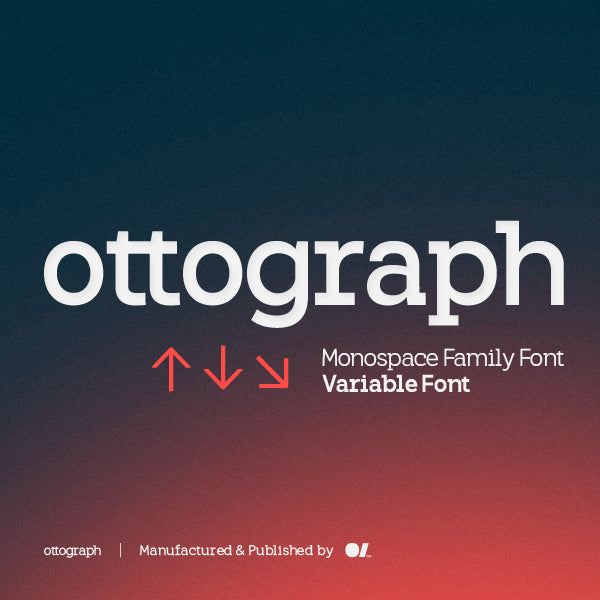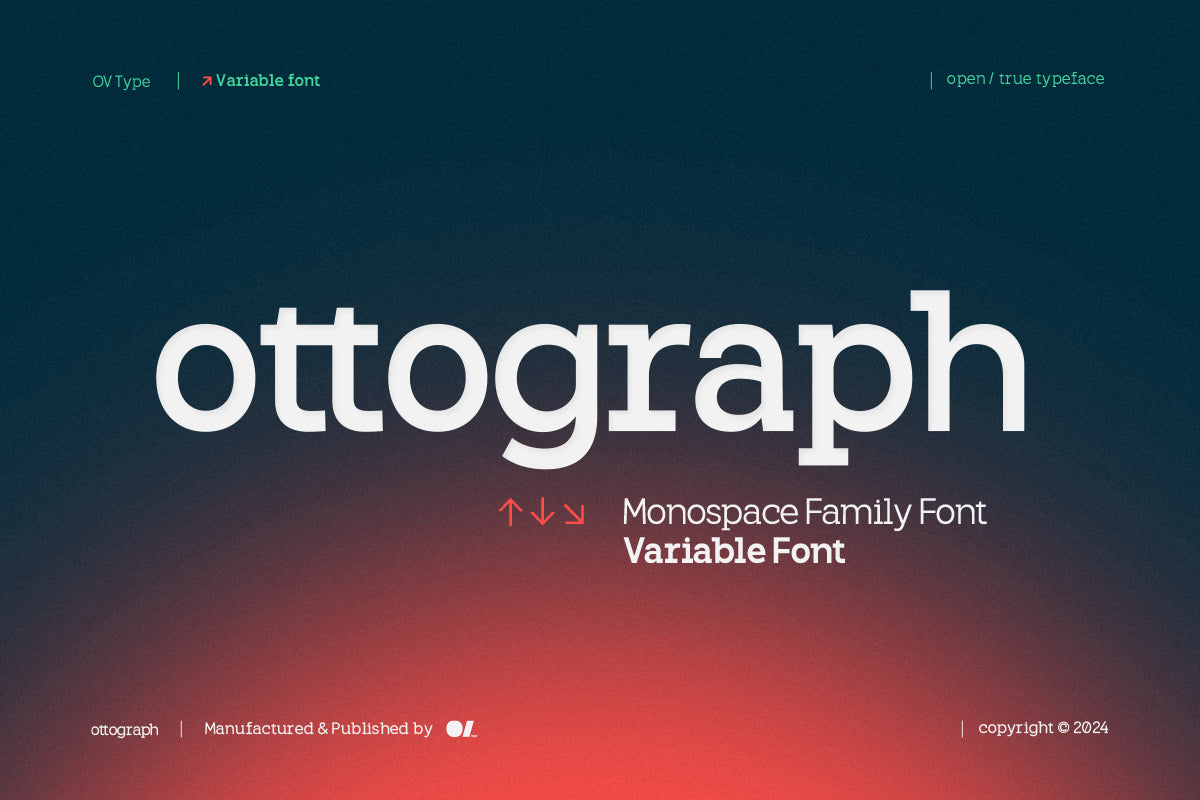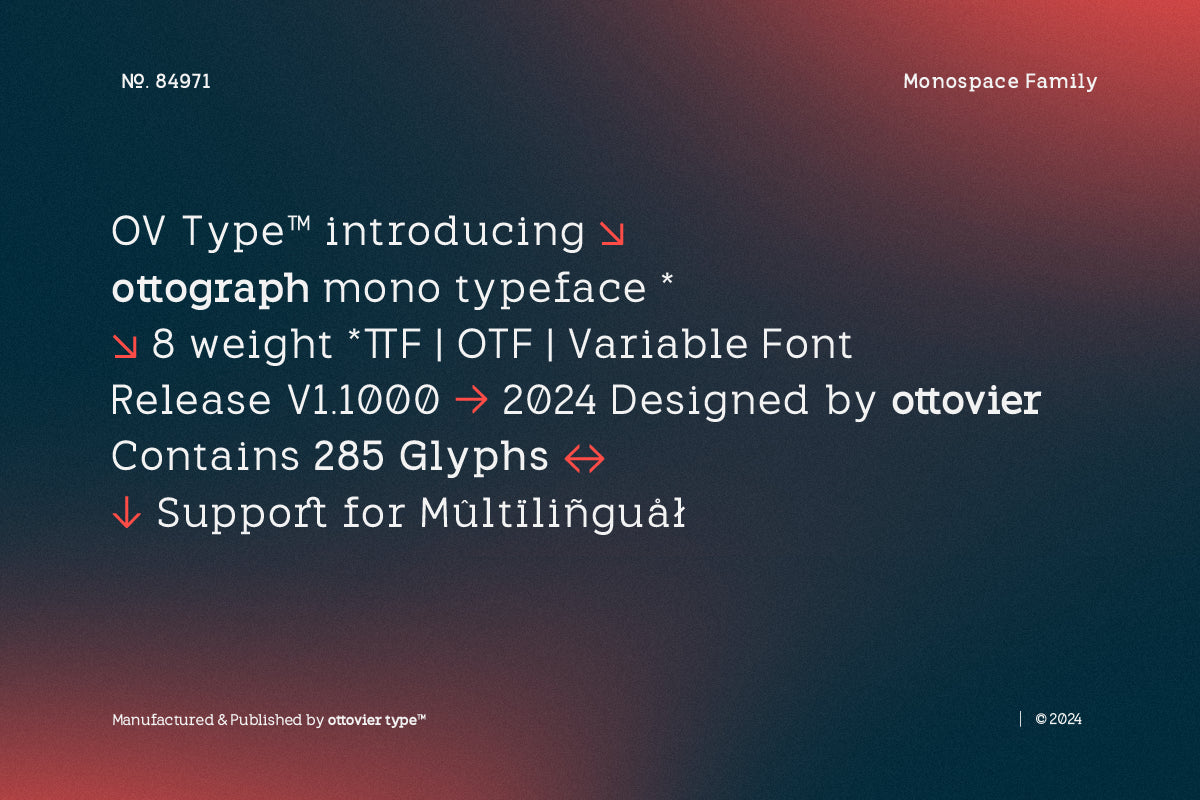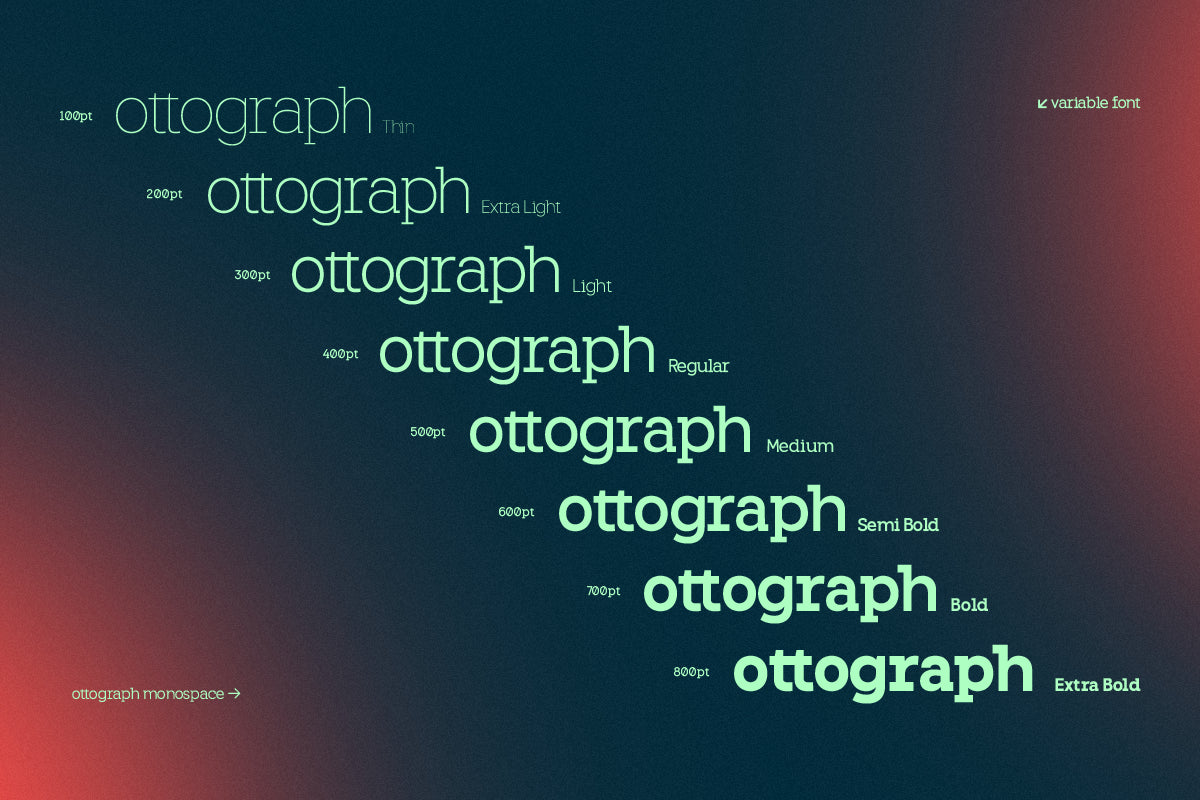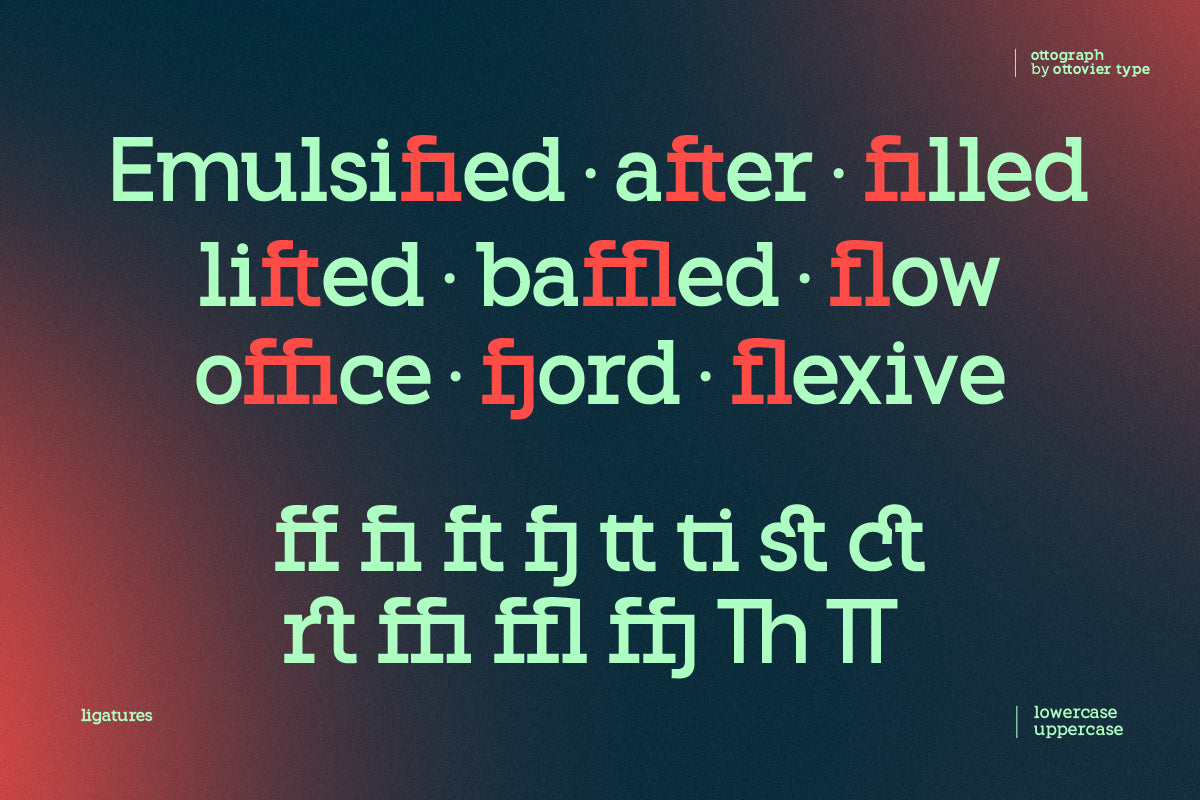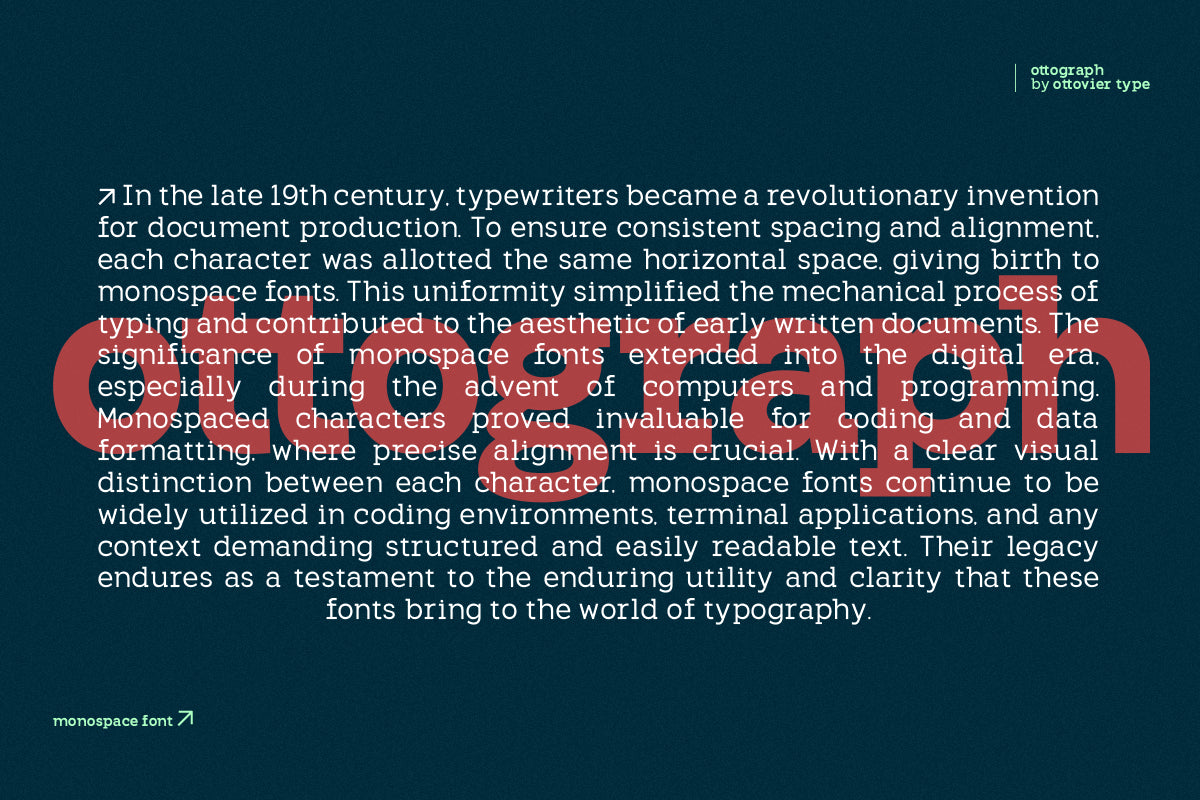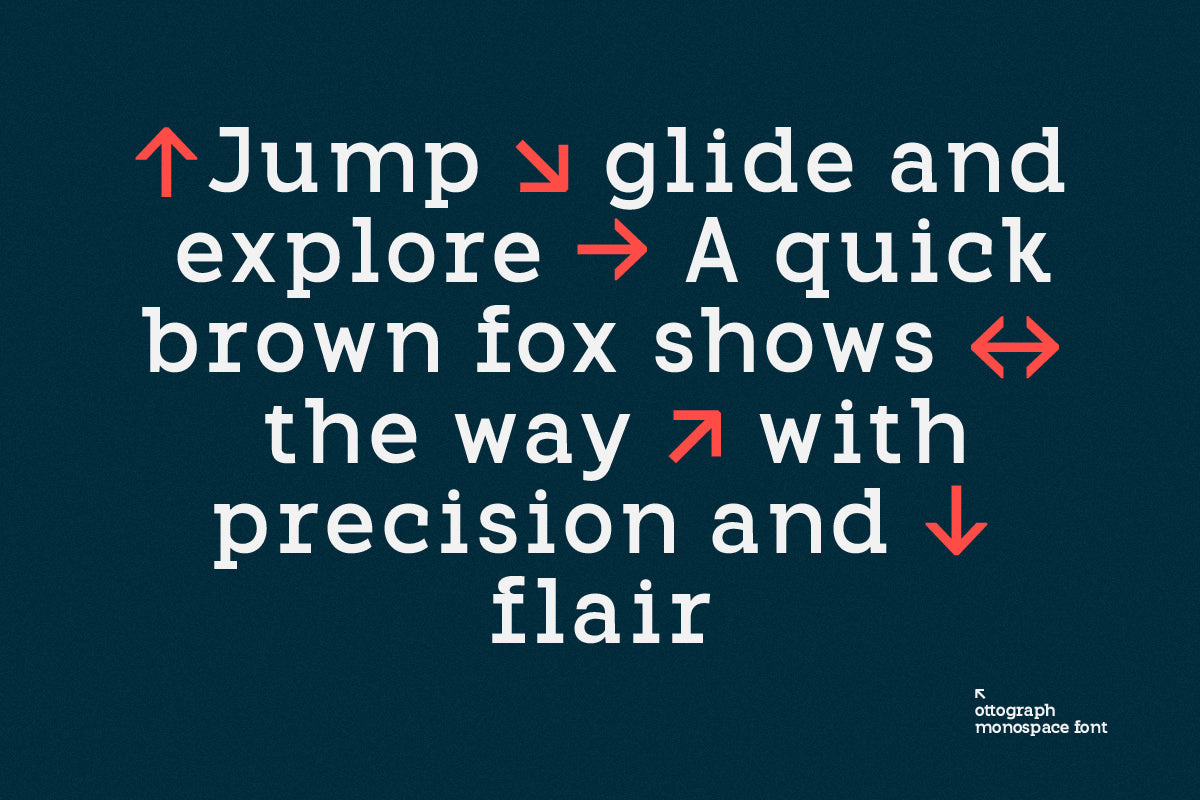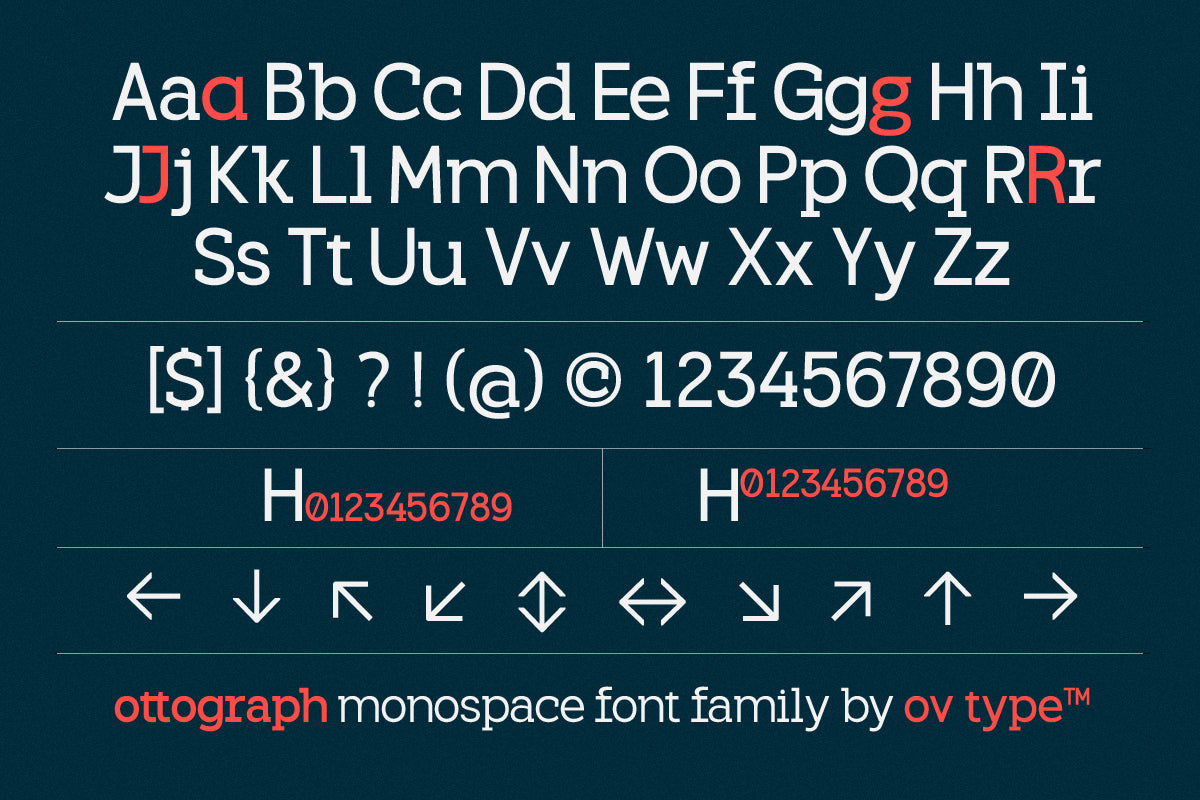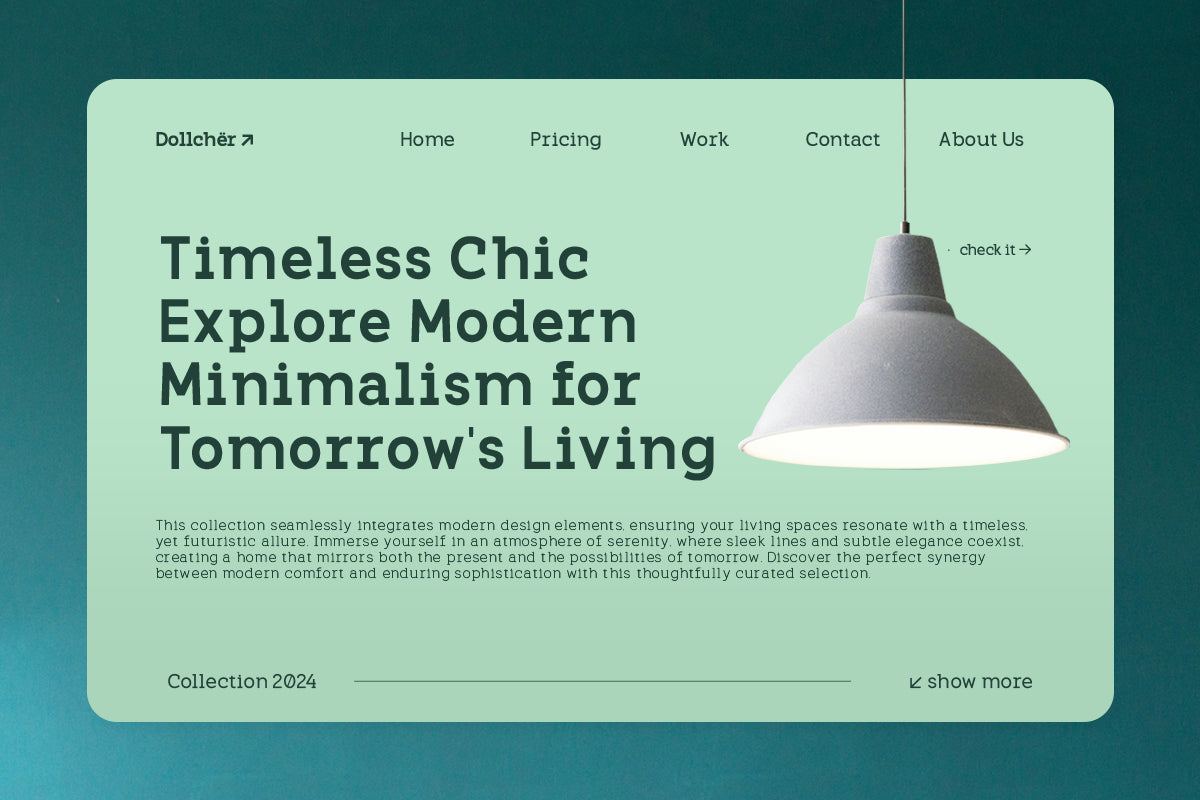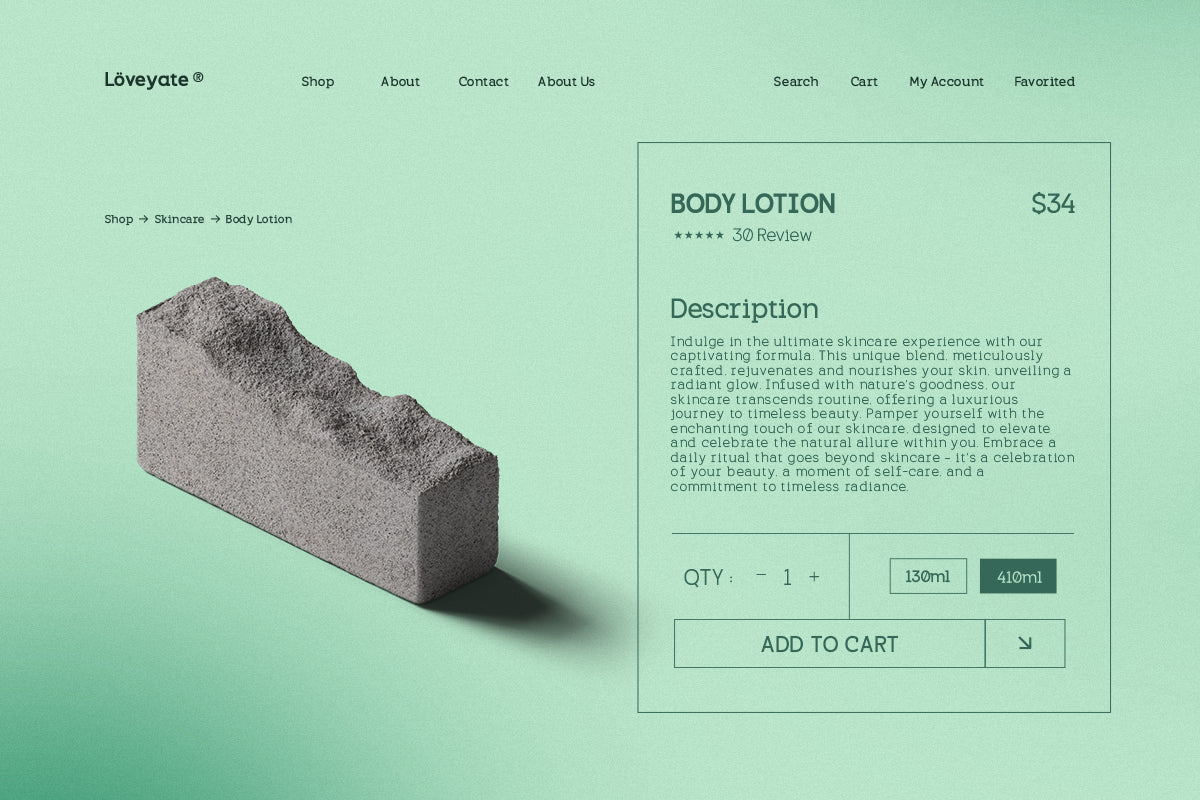
Ottograph Duospace Font Family
Hey there! We know finding the perfect font can be a real challenge. That’s why we're excited to introduce OV Ottograph Duospace Font Family. Unlike the usual monospace fonts, OV Ottograph has a cool duospace design that brings a fresh, modern vibe to any project.
Whether you’re working on web design, branding, or editorial layouts, this font has you covered. Plus, you’ll get future updates to keep your design toolkit up-to-date. Ready to upgrade your design game? Give OV Ottograph a try!
The Ottograph Duospace Font Family features a modern duospace design, offering a clean and minimalistic aesthetic suitable for various design projects. It includes future updates to ensure your font collection remains current.